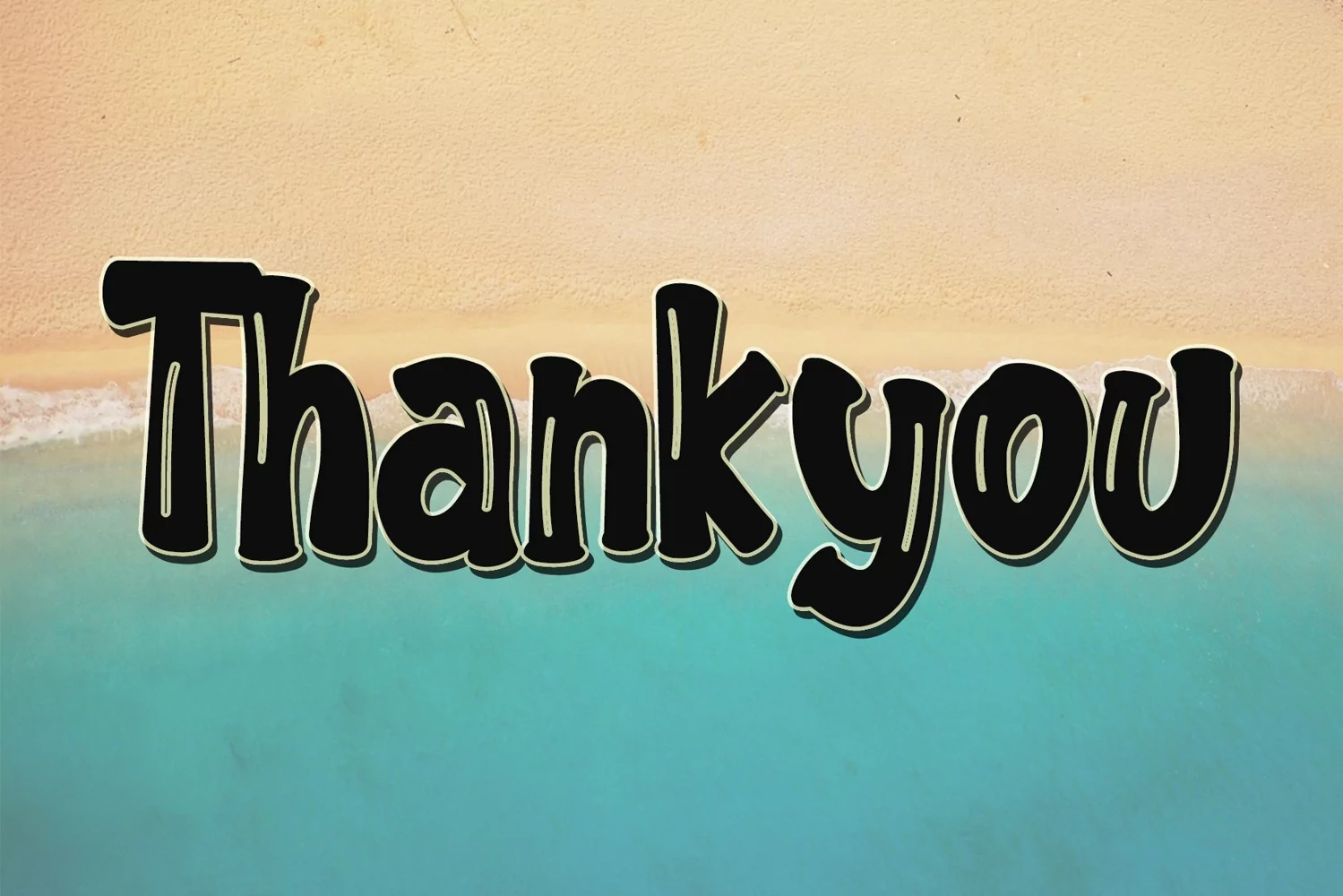
Beautiful Handwritten
Summer Holiday
Summer Holiday is a Playful Display font by Letterafa Studio. It has flowing letters that will give your designs a unique and sweet look. Summer Holiday font is perfect; logos, greeting cards, a package design, a brand identity, craft design, any DIY project, book title, wedding invitation, packaging, and more.